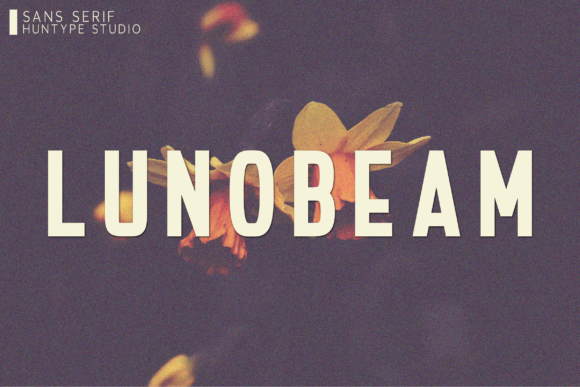
Immerse yourself in the captivating realm of Lunobeam, where your words dance with exquisite style and impact. Crafted by the visionary artisans of Huntype, this sans serif masterpiece is not just a font; it's a passport to a world of boundless expression.
Lunobeam's all-caps design exudes a regal elegance that commands attention. Its clean, flowing lines evoke a sense of grace and sophistication, while its subtle contrast adds a touch of intrigue that will keep your audience captivated.
Perfect for logos, branding, and web headings, Lunobeam effortlessly elevates your brand to new heights. Its versatility knows no bounds, empowering you to showcase your messages with unparalleled impact.
With Lunobeam, you're not just choosing a font; you're choosing a gateway to extraordinary communication. Let your words soar with Lunobeam and leave an unforgettable impression on every encounter.